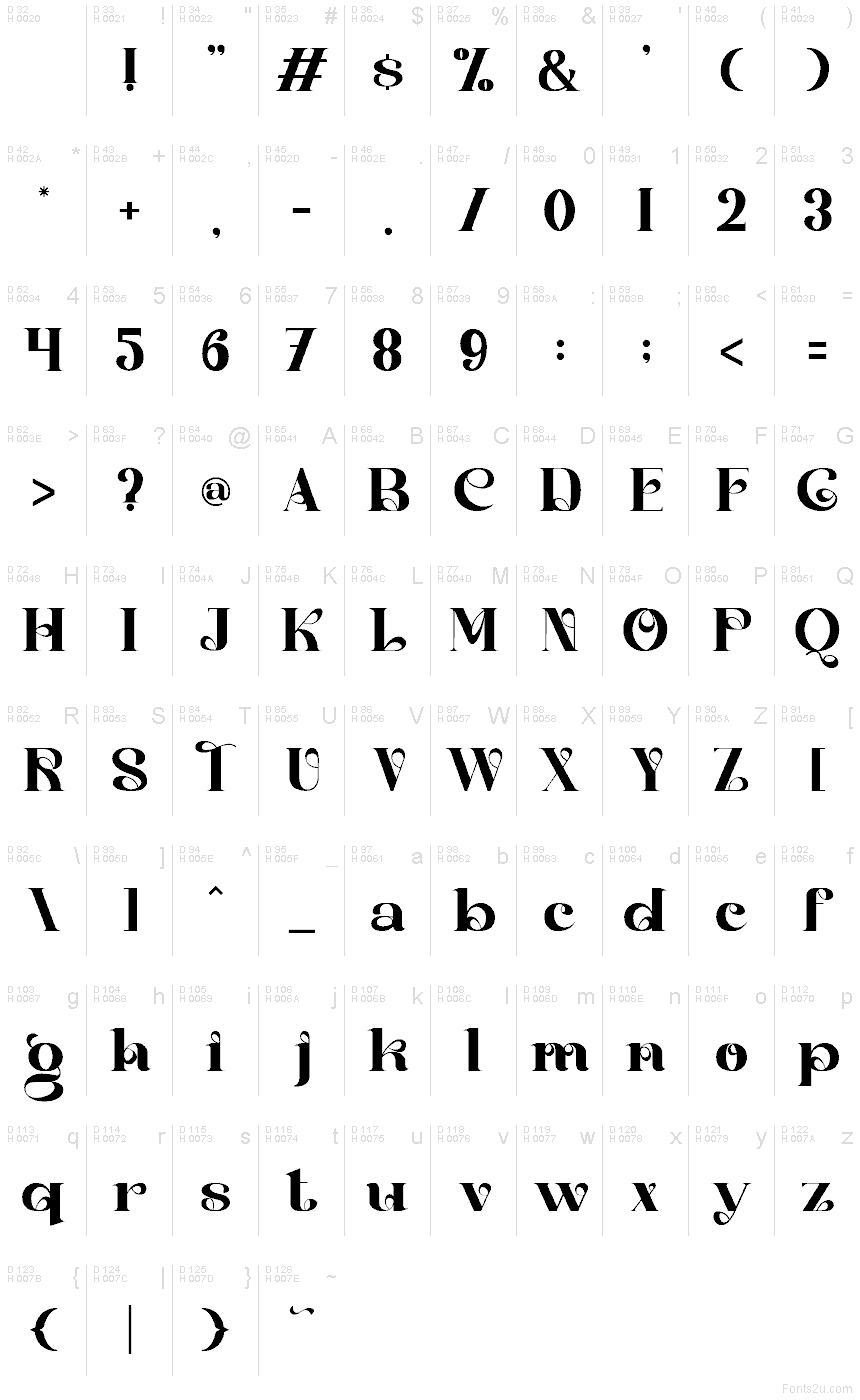
Grinda Display
Grinda Display font by PutraCetol Studio is a bold expanded vintage display typeface with smooth curves, curly details, and decorative flourishes. The free serif font resembles classic letterings from historical references that create a refined appearance and bring elegance to any project.